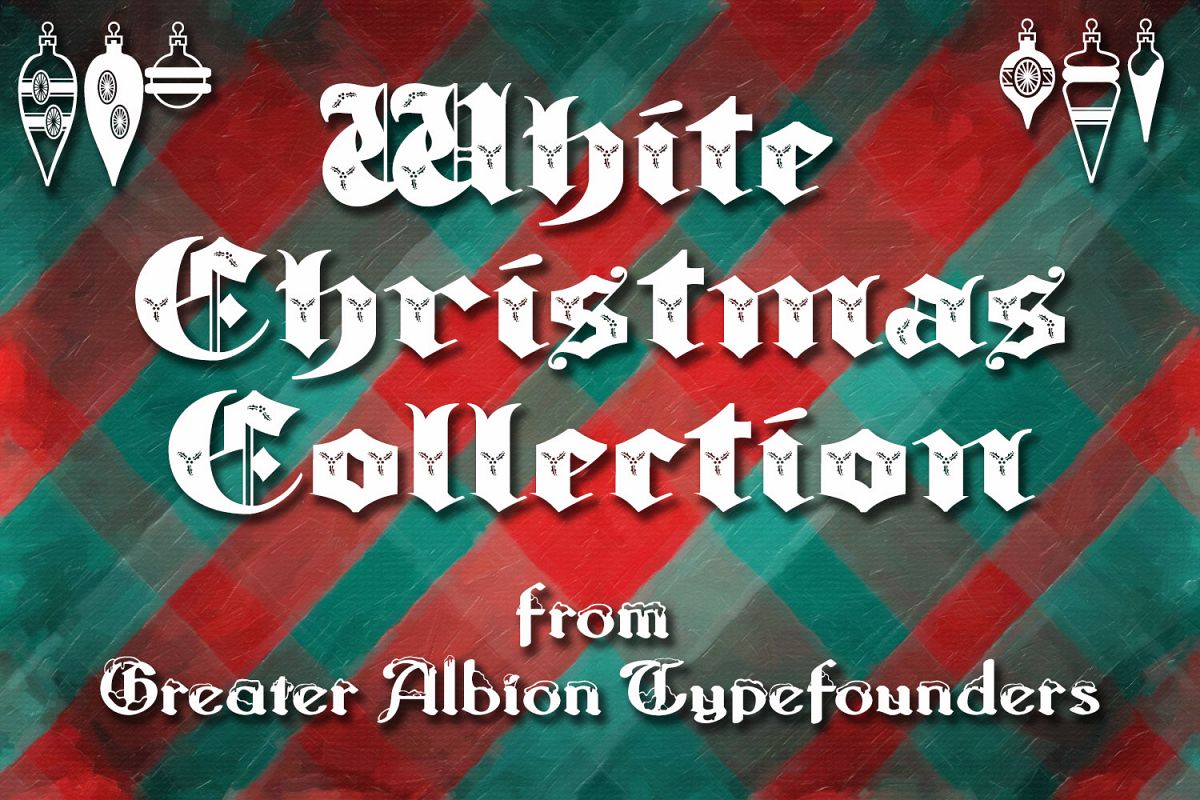
White Christmas Collection
The White Christmas Collection combines two of Greater Albion Typefounders' most popular seasonal themed typefaces 'Albion's White Christmas' and 'Albion's Black Holly' with a collection of our fun christmas ornaments (Christmas Fleurons, Merry Baubles, Merry Bauble Letters, Merry Snowmen).  It's the ideal package for any Christmas themed design work, or just for having seasonal fun!
White Christmas Collection